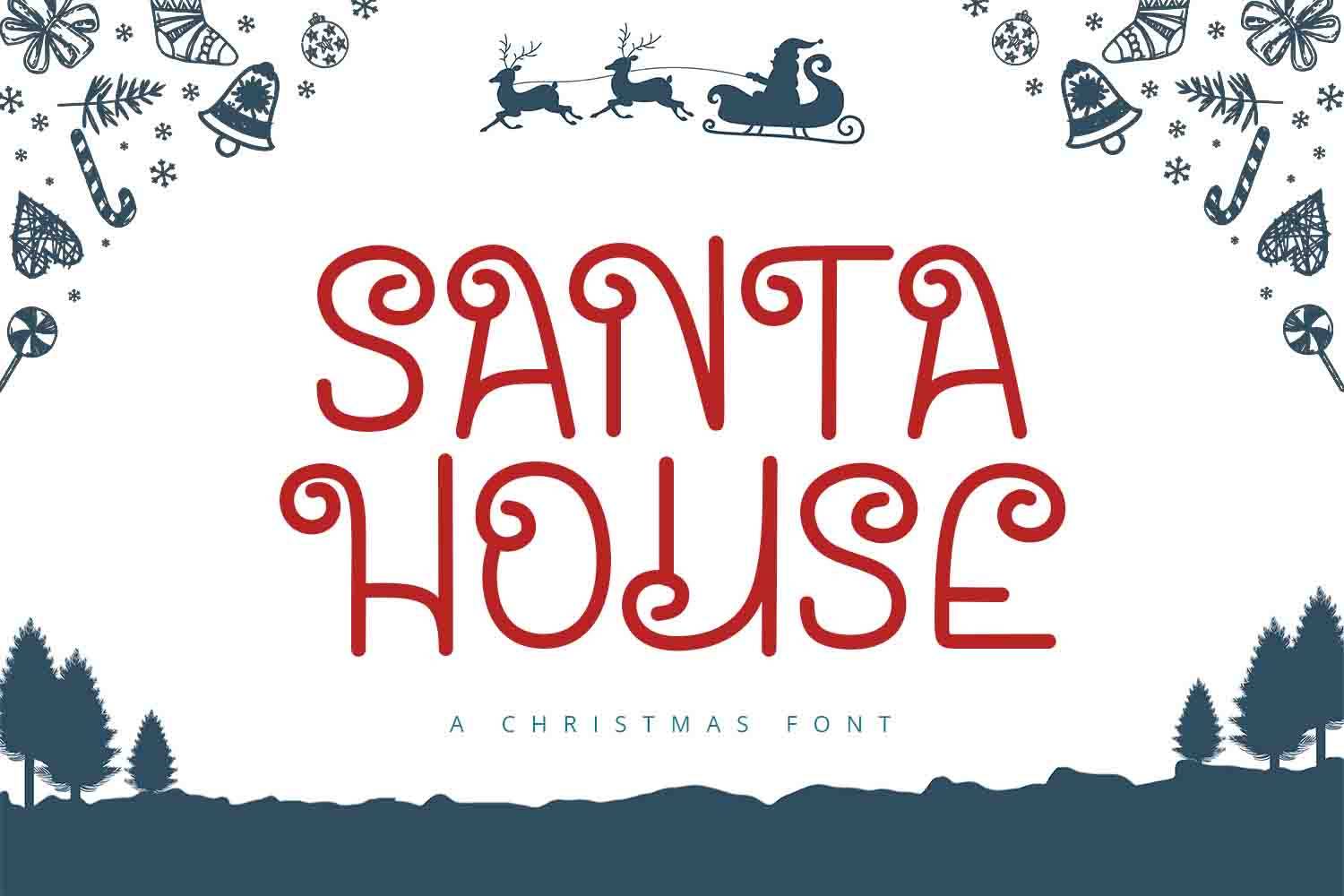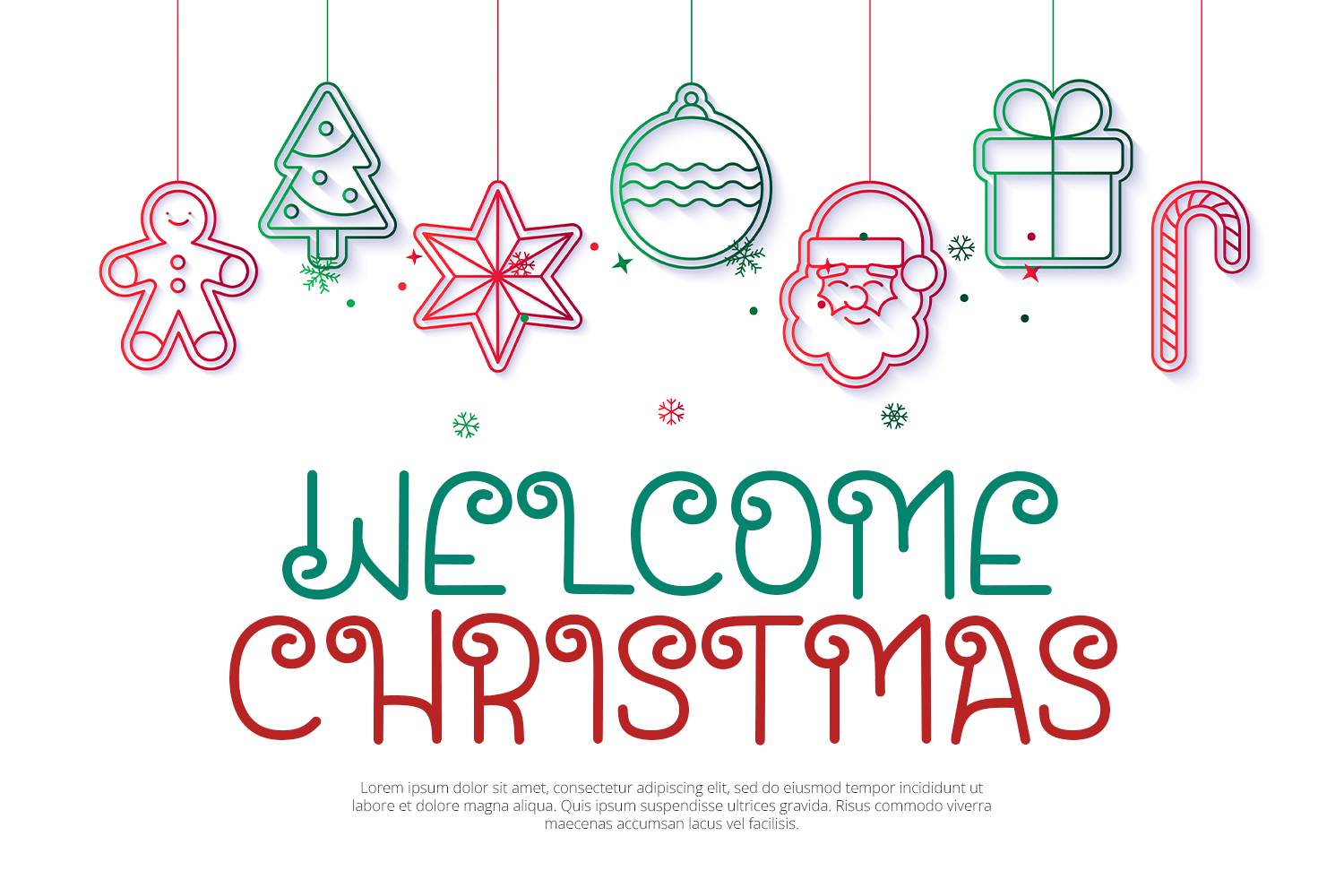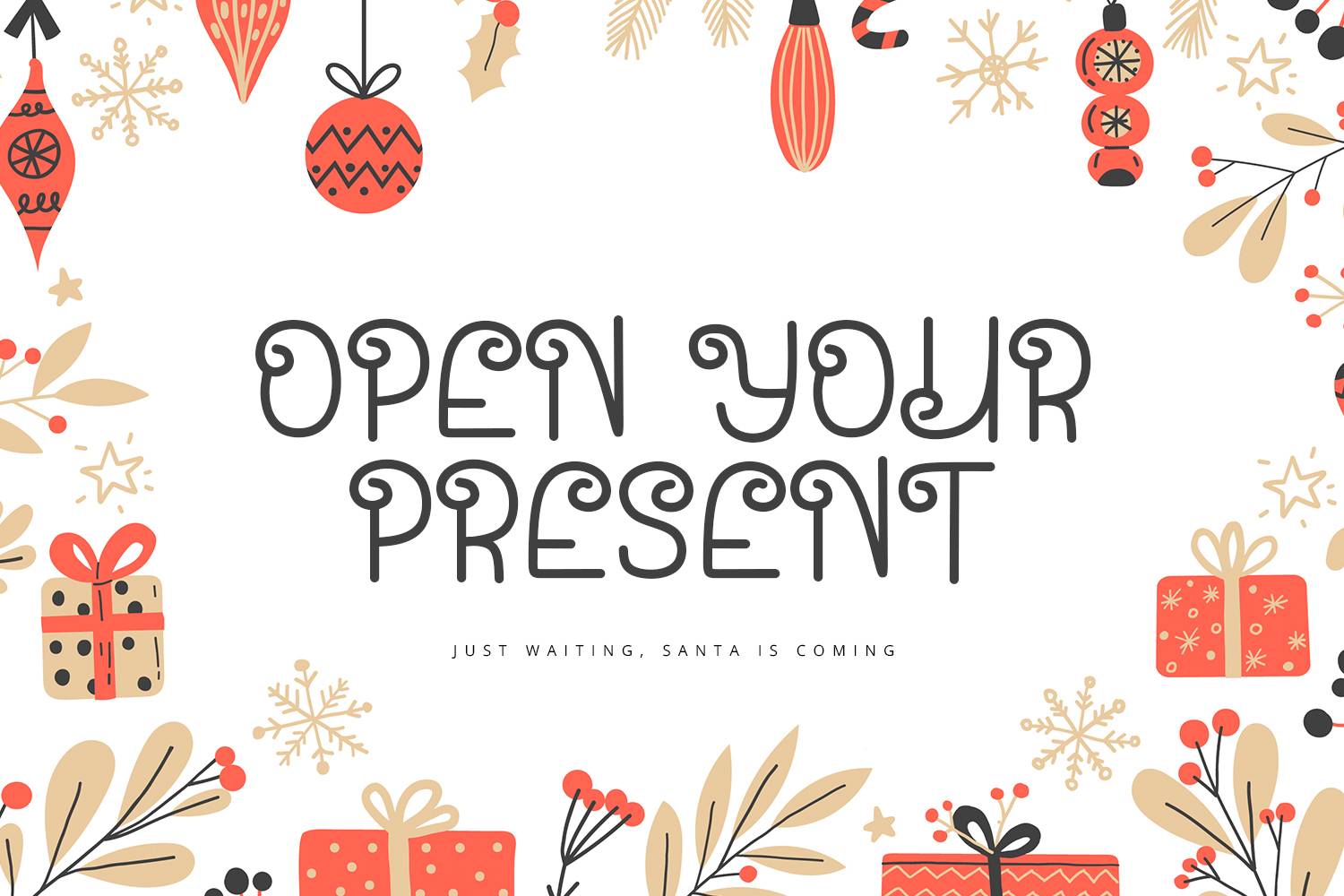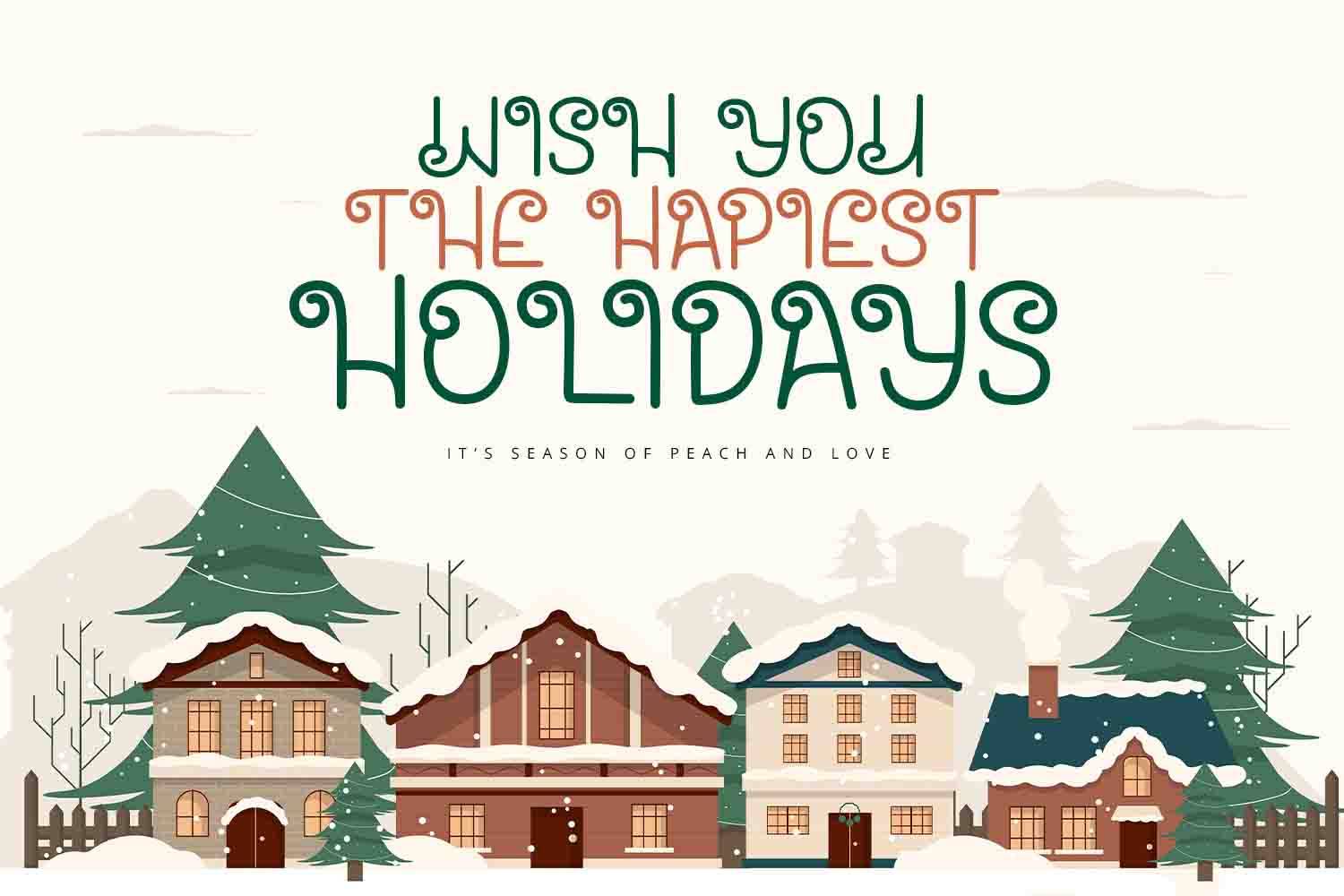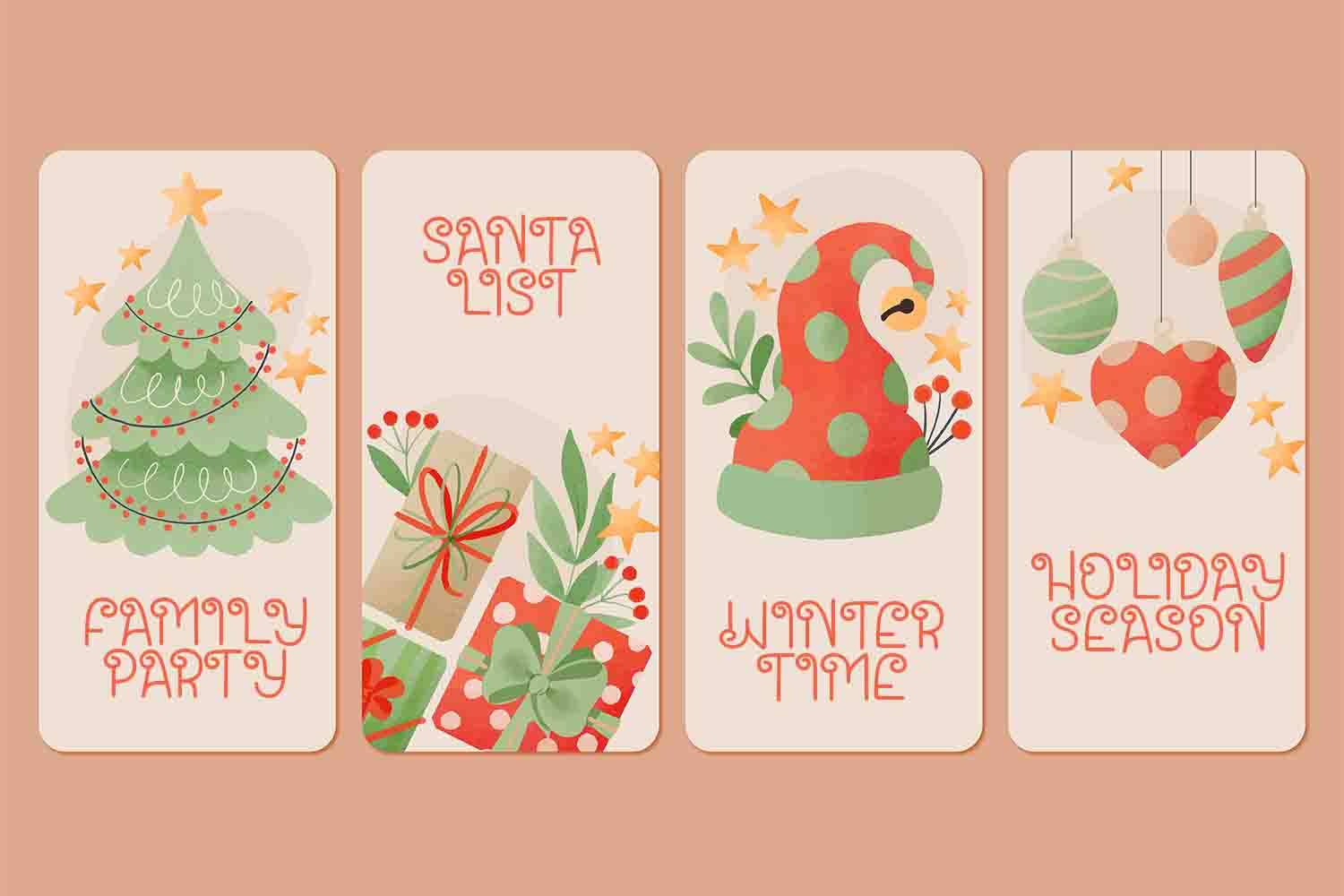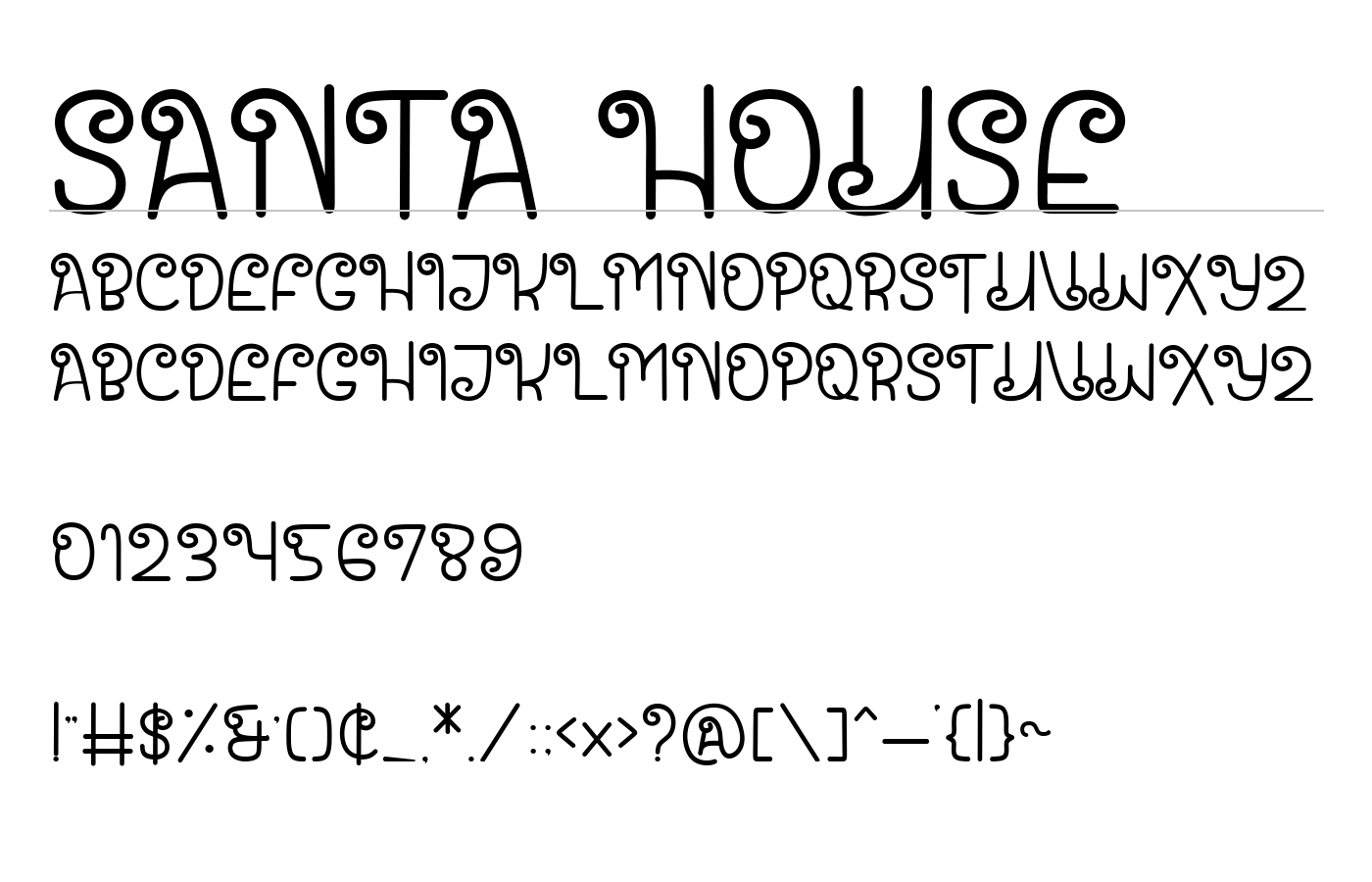
Santa House is a playful, decorative sans serif font featuring whimsical curls and rounded terminals that give it a lighthearted, festive feel. Its thin strokes and upright structure combined with unique spiral embellishments make it ideal for holiday-themed designs, children's projects, and creative branding where a fun and charming personality is desired. This font works best in headlines, logos, and packaging to add a touch of joyful creativity without sacrificing readability.
Santa House Font
About Santa House Font